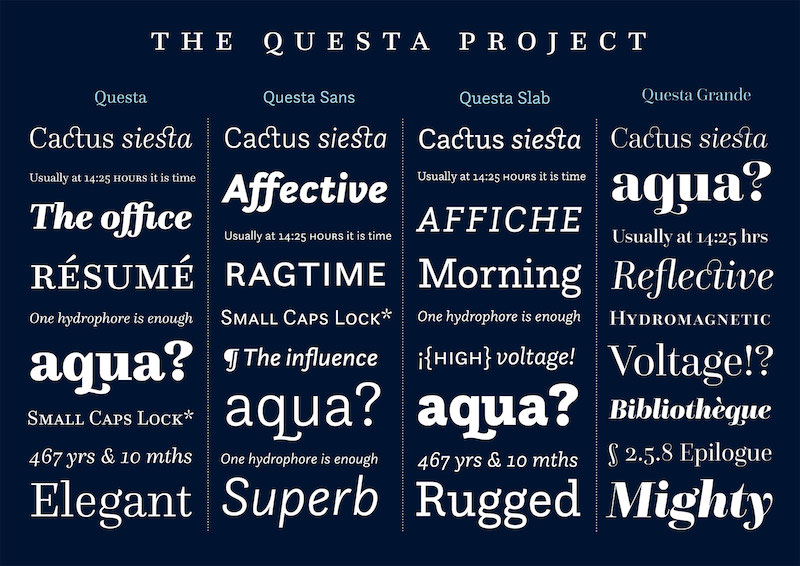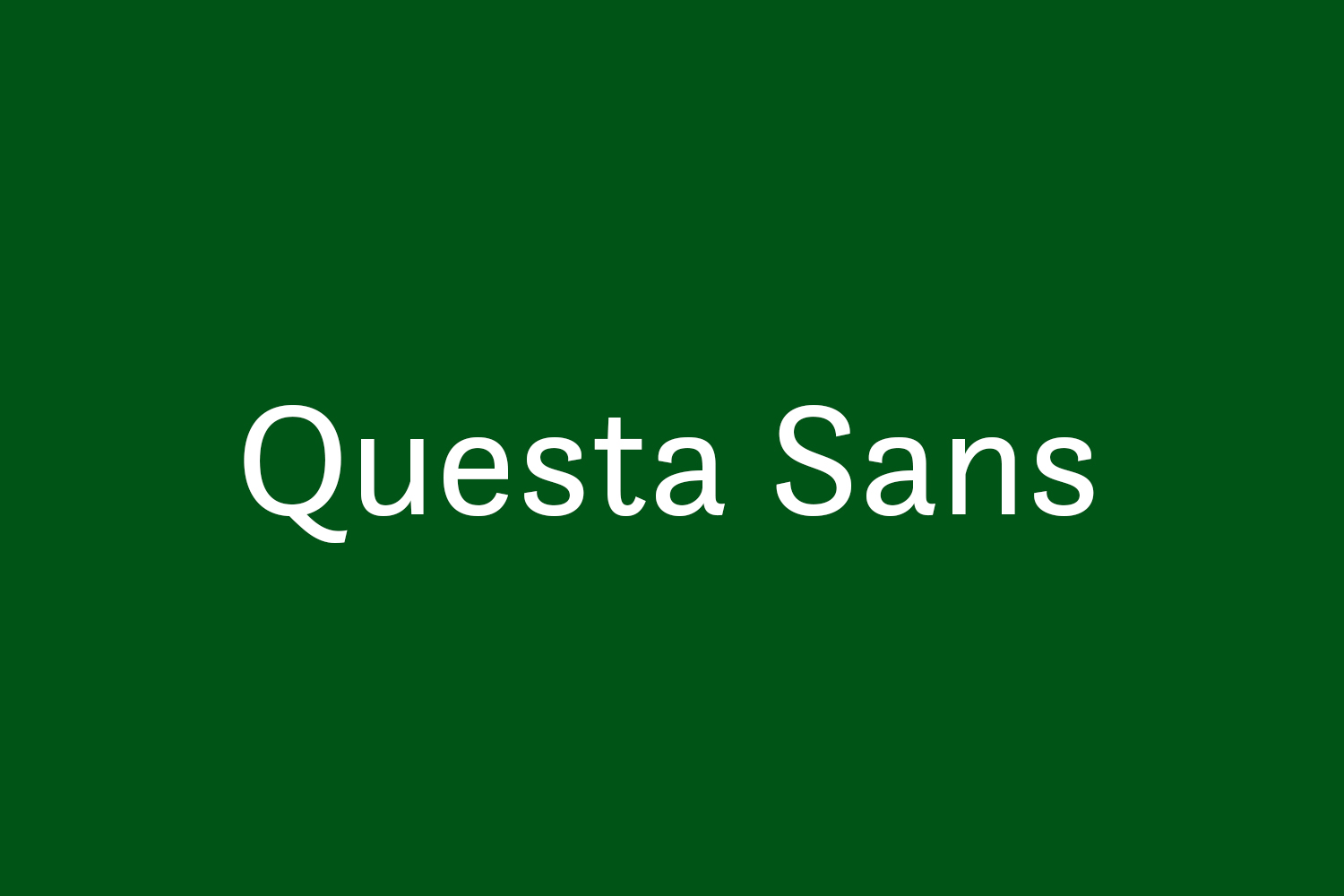
Questa Sans Font
Questa Sans Font is one of the most used font in Adobe. This typeface is quite similar to the Murano font and it is available in google fonts. It is available in 8 weights providing masses of glyphs and italic versions as well. The font you use is a crucial factor of equal time as designing an identification.
The contemporary weights live real to the style and fashion of one piece font with the familiar clean traces, stylish shapes, a combination of technical straightforwardness and herbal warmth. Questa Sans Font Free Its topographies immoderate capital letters composed out through an aggregate of small and superb lowercase fonts. You may additionally apply it to your net web page or emblem format. Categorically tremendous appropriate to expose and opinions of importance, this will be an exquisite accumulation to your font series.